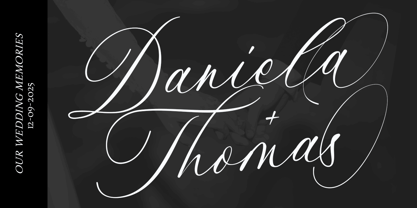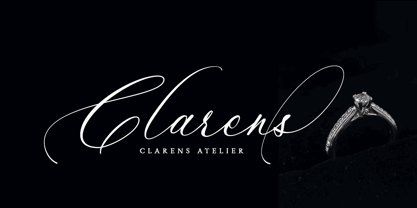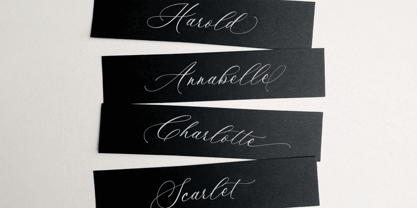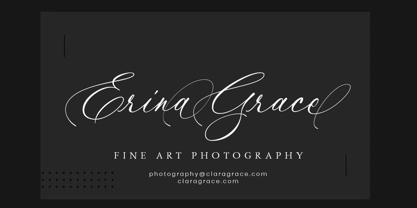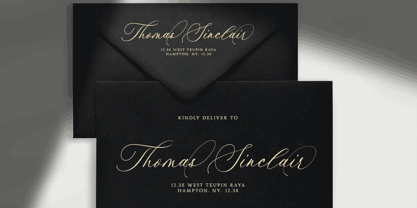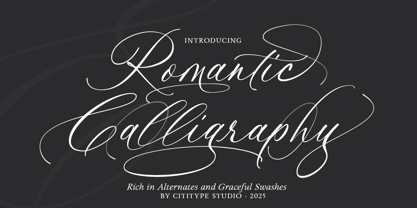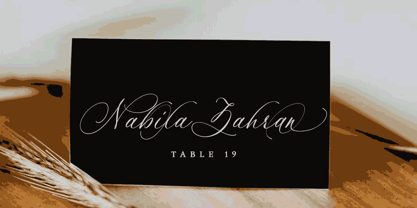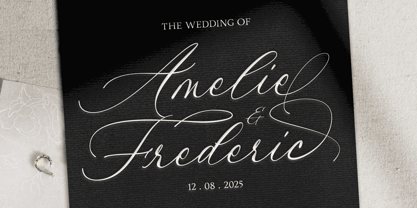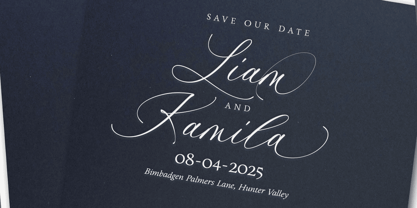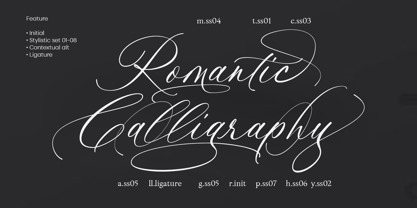
Romantic Calligraphy
by Cititype
The Romantic Calligraphy Font Family was designed by Muhammad Ridha Agusni, Siti Saribanon Nurjannah and published by Cititype. Romantic Calligraphy contains 1 styles.
Romantic Calligraphy is a modern calligraphy typeface that captures the beauty of handwritten love in every curve and detail. Its gentle rhythm and flowing strokes create a natural harmony between elegance and emotion, making it the perfect choice for wedding invitations, save-the-date cards, stationery, and romantic branding projects. Designed with a handcrafted touch, this font feels warm, poetic, and effortlessly graceful. Every letter is shaped to express a sense of sincerity and softness, allowing your words to flow as if written by hand. The typeface is rich in alternates, featuring a wide selection of stylistic variations, natural ligatures, and beautiful swashes that give you endless possibilities to customize each design with personal charm. Whether used for names, quotes, or brand identities, Romantic Calligraphy adds an unmistakable feeling of love and sophistication. With its delicate balance of refinement and natural movement, it turns simple words into timeless expressions of art that celebrate moments filled with beauty and emotion.
Romantic Calligraphy
About Cititype
Cititype Studio, founded by Saribanon Nurjanah from Indonesia, is a heartfelt endeavor rooted in a passion for elegant and feminine design. Specializing in script fonts, Cititype brings a delicate touch of chic fashion and grace to every project. Saribanon believes that the beauty of handwriting lies in its uniqueness, making it a perfect choice for modern brands and digital products that wish to stand out while maintaining a warm and personal connection. At Cititype Studio, each font is crafted with care and a deep love for the art of typography, offering a soft, stylish, and authentic touch to any creative endeavor.